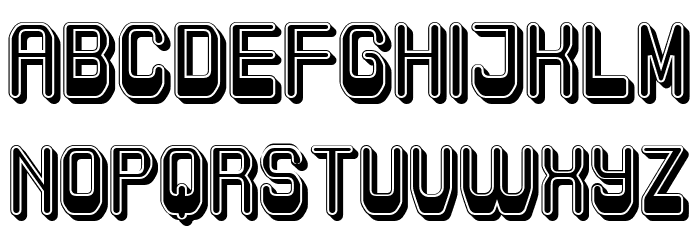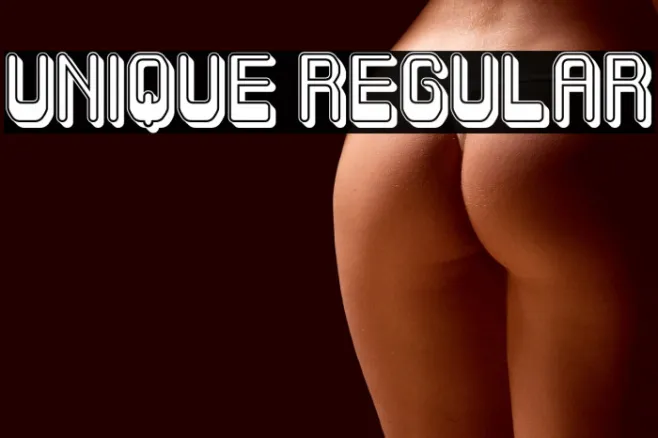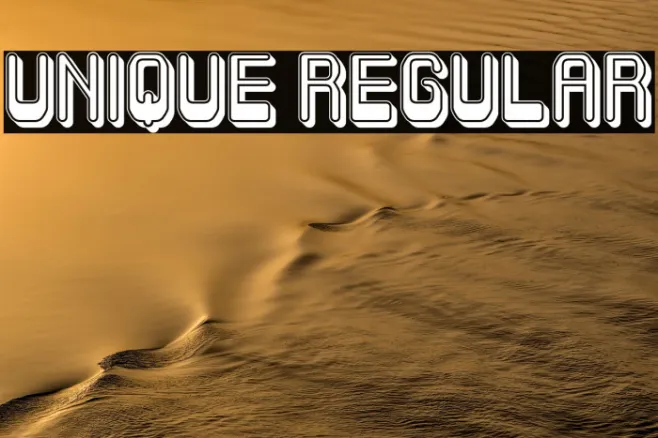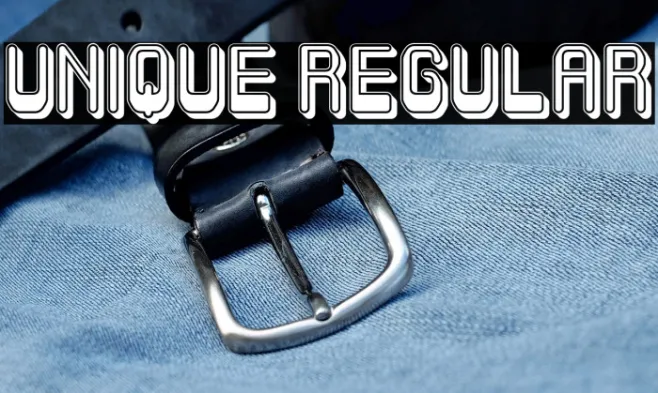
Unique Regular Font
This font features a bold, geometric design with a three-dimensional effect created by its layered outline. The characters are uppercase, showcasing a modern and futuristic style. The strokes are thick and consistent, with a high contrast between the filled and outlined sections. The font's structure is clean and precise, making it suitable for attention-grabbing designs. Its unique appearance is enhanced by the shadow effect, giving it depth and a dynamic look. The font is ideal for projects that require a strong visual impact, such as posters, headlines, and branding materials.
A bold, geometric font with a 3D effect and high contrast, perfect for impactful designs.
- Font: Unique Regular
- Proposed Projects: Ideal for posters, headlines, branding, and any project needing a strong visual impact.